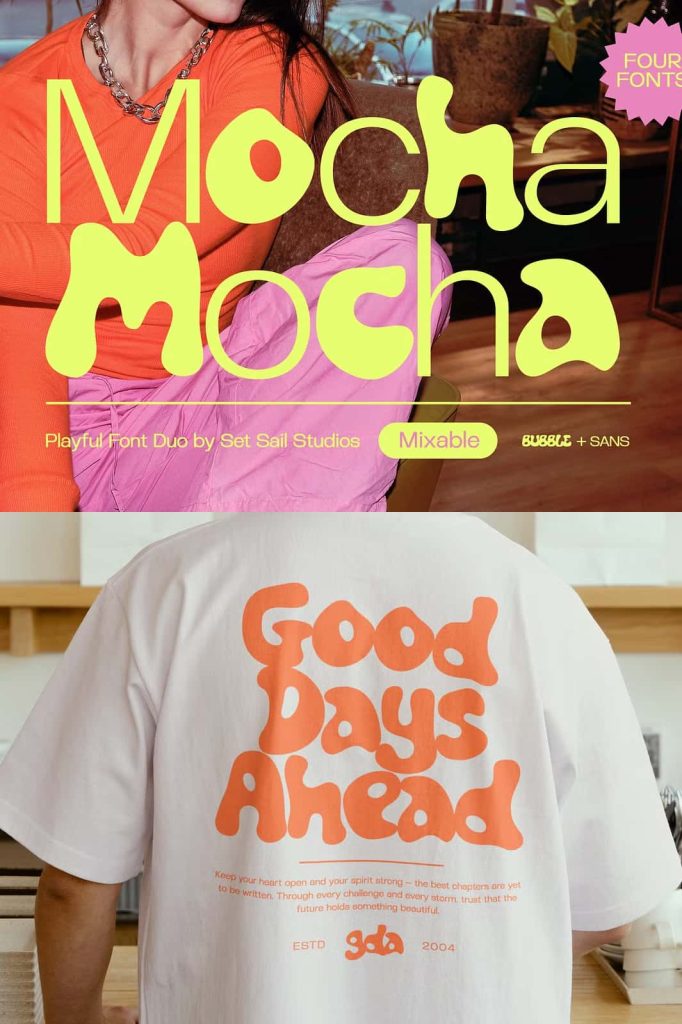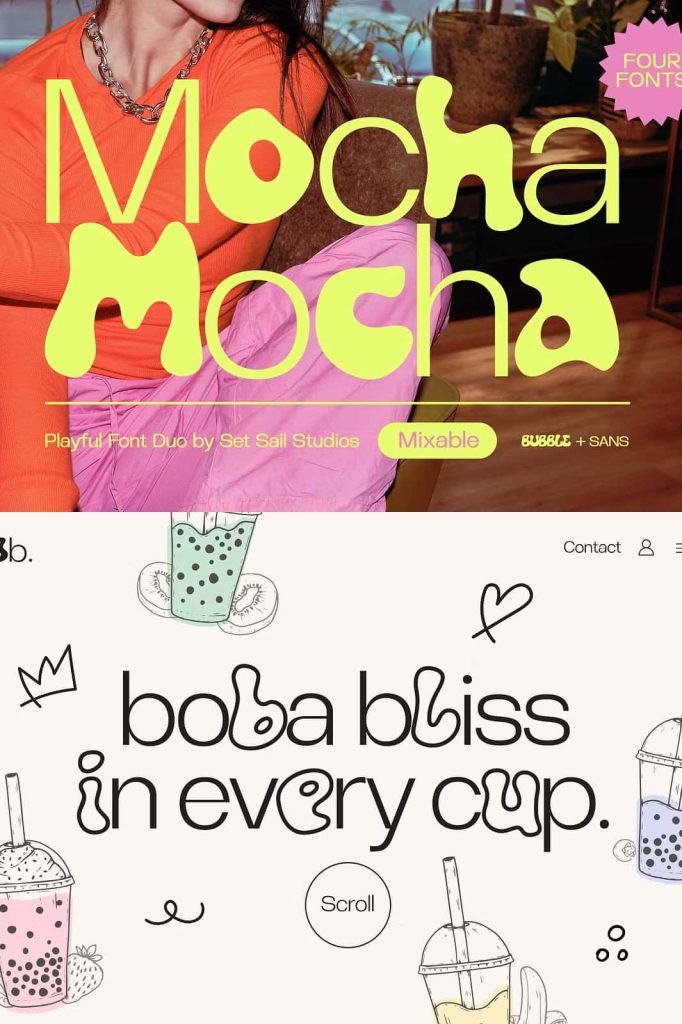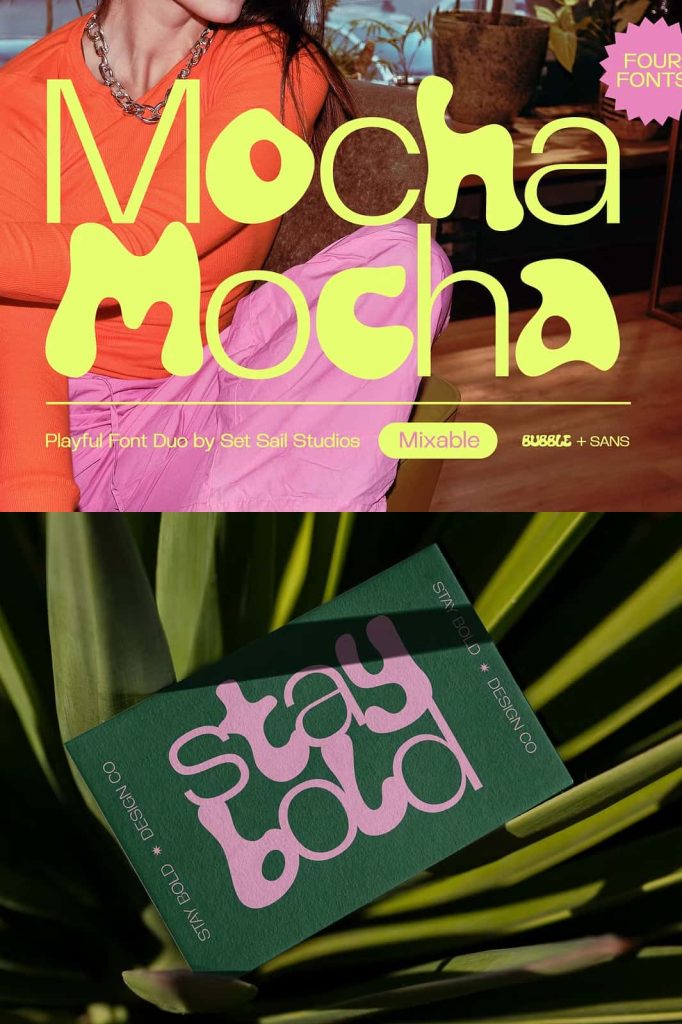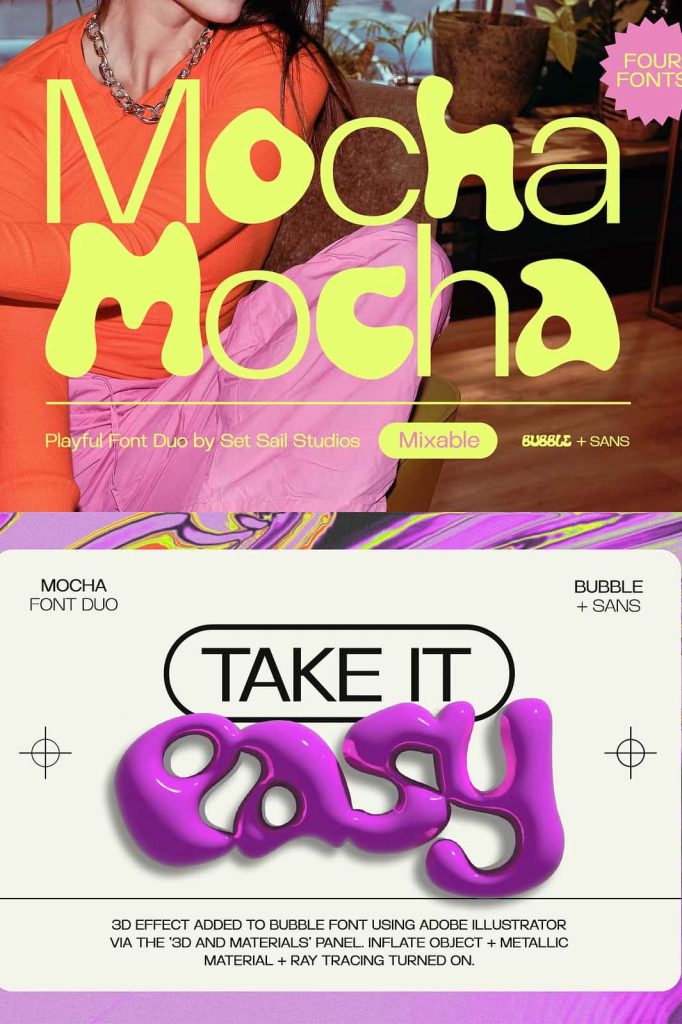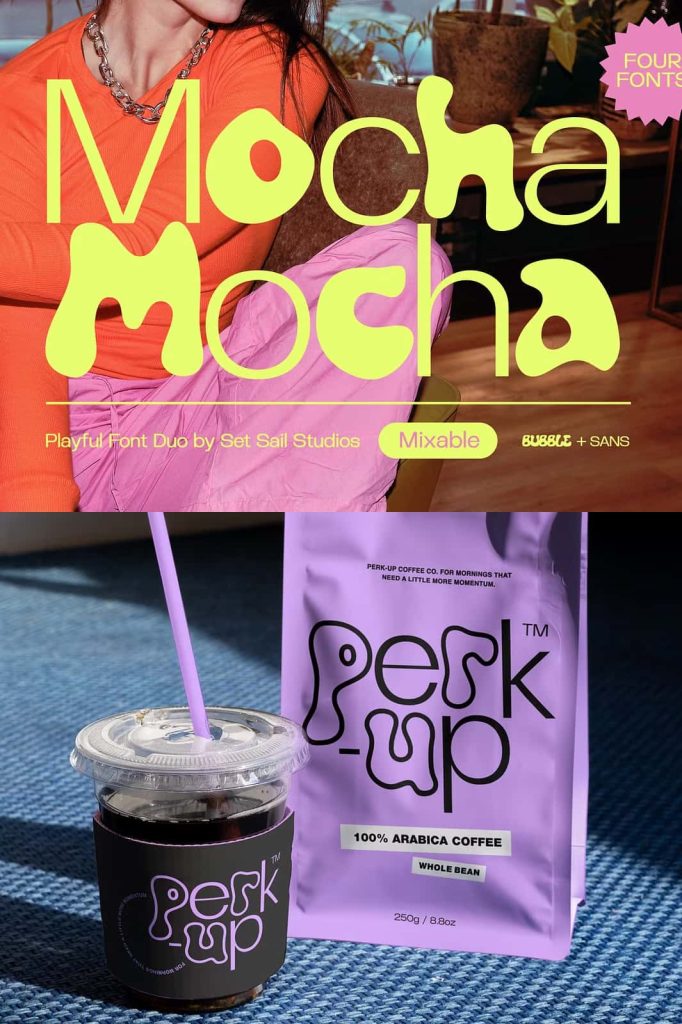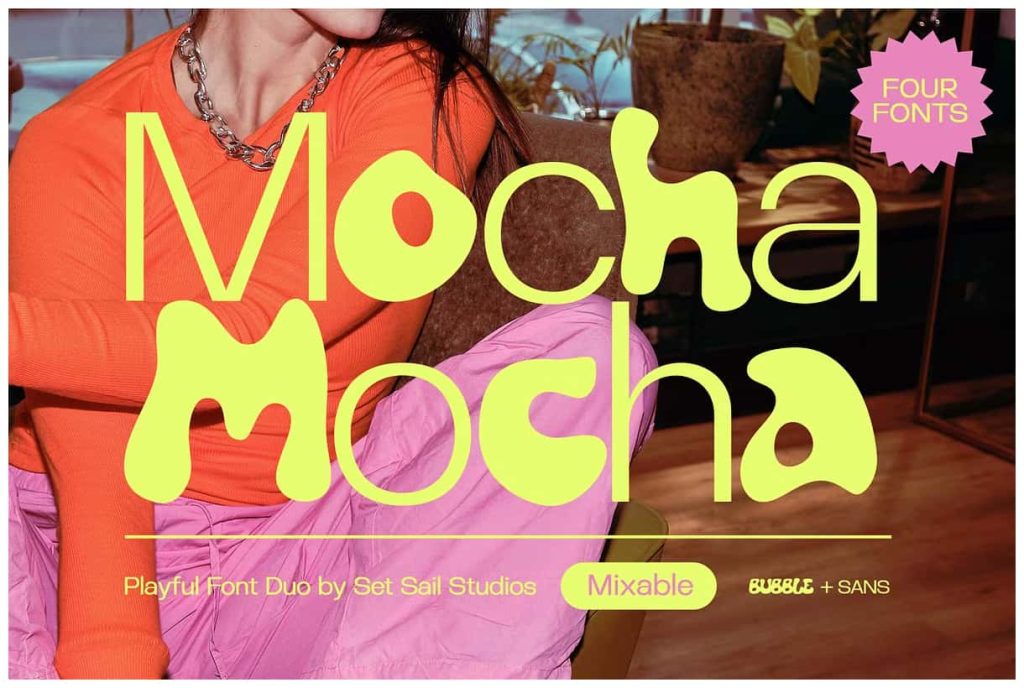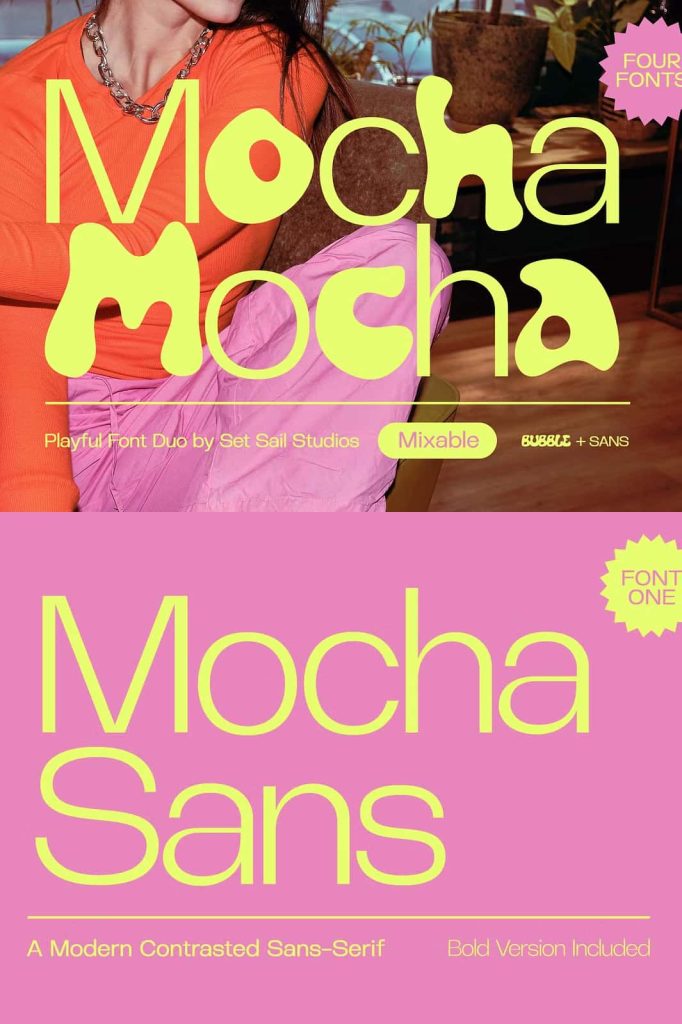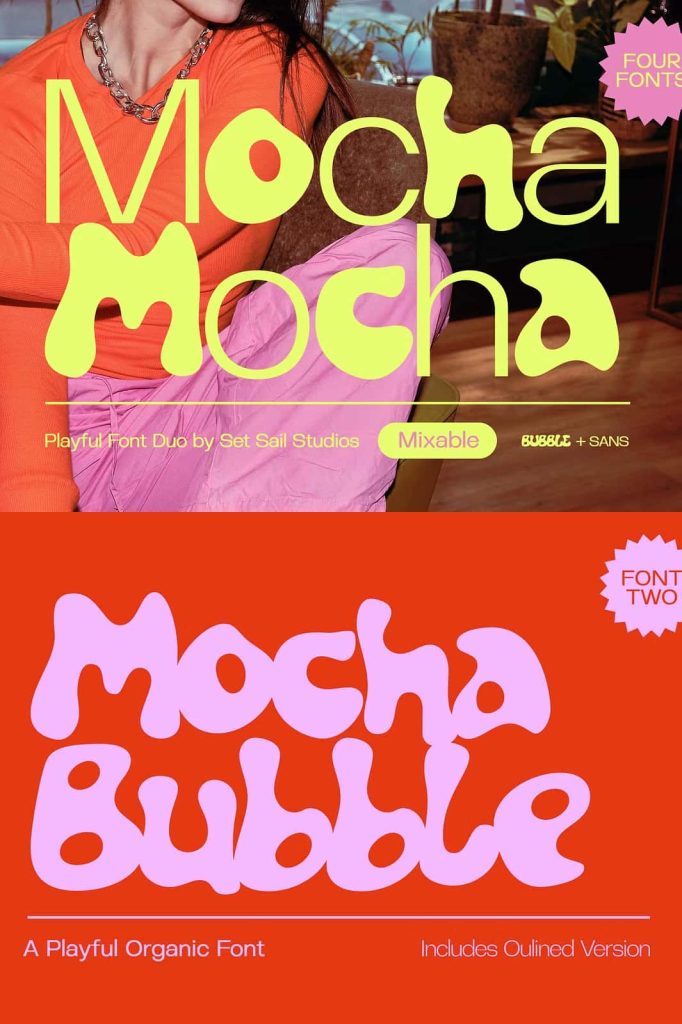
Introducing the Mocha Font Duo! This super playful pairing of Bubble and Sans fonts is ready to bring some modern, trendy and fun typography to your design project.